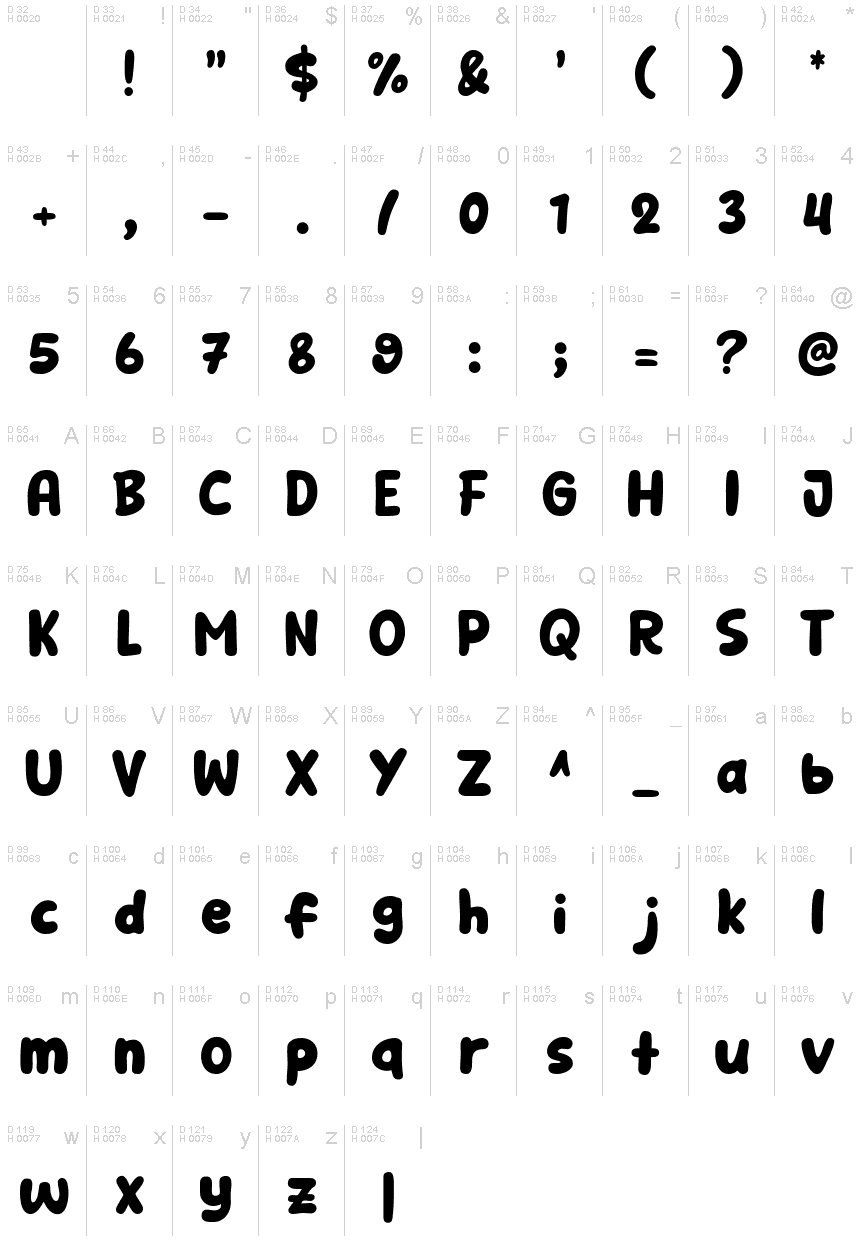
There Comic
There Comic, a bold display font designed by Khurasan, brings a playful and whimsical touch to any project.
With its cartoon-inspired style, this font is perfect for children's book covers, greeting cards, and comic strips. Its bold weight adds emphasis and makes it stand out in headlines and titles. Whether you are designing a poster for a school event or creating eye-catching social media graphics, There Comic is sure to add a fun and vibrant element to your designs.